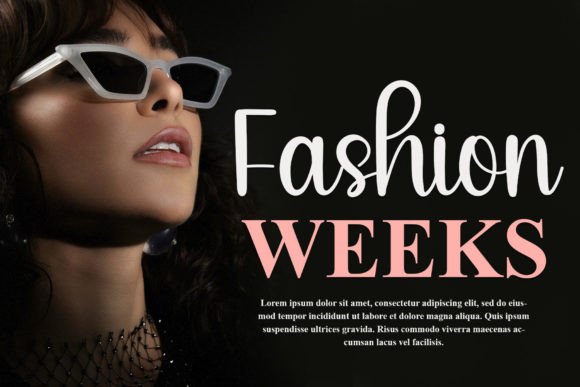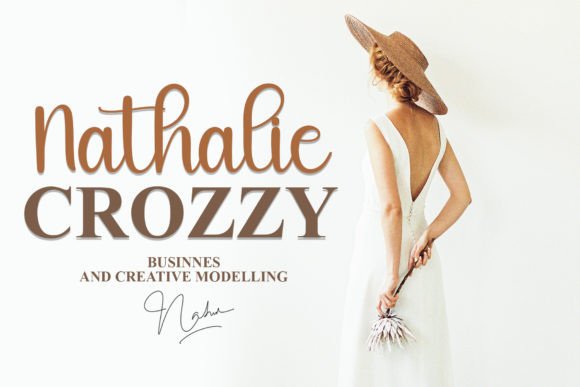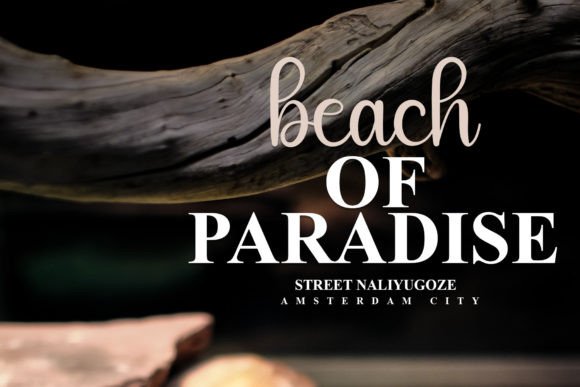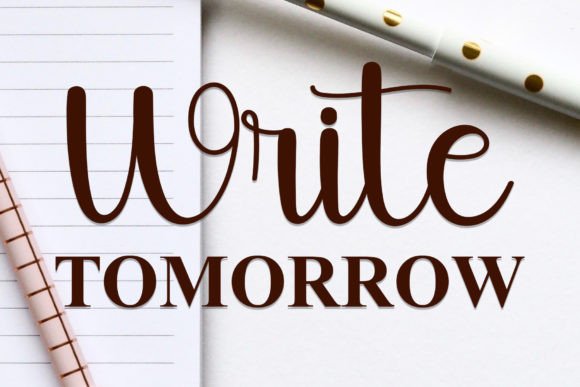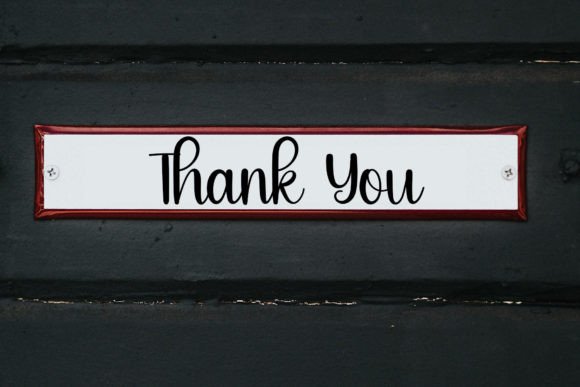
Introducing Attention Font: Elevate Your Designs with Elegance and Sophistication
Are you on the hunt for a font that exudes class, modernity, and refinement? Look no further than Attention Font, a stunning handwritten typeface that is sure to take your designs to the next level. With its beautiful and elegant strokes, Attention Font is perfect for a wide range of creative projects, from logos and branding to invitations, stationery, wedding designs, social media posts, and more!
The Perfect Blend of Style and Versatility
Attention Font is a masterclass in typographic design, boasting a unique blend of style, sophistication, and versatility. Its refined handwritten aesthetic makes it an excellent choice for designers and crafters looking to add a touch of elegance to their work. Whether you’re creating a logo, crafting a social media post, or designing a wedding invitation, Attention Font is the perfect choice.
One of the standout features of Attention Font is its incredible versatility. Its modern and classy design makes it suitable for a wide range of applications, including:
- Invitations and Stationery: Add a touch of elegance to your invitations, greeting cards, and stationery with Attention Font’s beautiful handwritten script.
- Wedding Designs: Make your special day even more unforgettable with stunning wedding designs, from invitations to signage, that feature Attention Font.
- Social Media Posts: Elevate your social media presence with eye-catching posts that showcase your brand’s style and personality.
- And More! The possibilities are endless with Attention Font – use it for packaging, advertising, and any other design project that requires a touch of sophistication.
Why Choose Attention Font?
So, what sets Attention Font apart from other fonts on the market? Here are just a few reasons why designers and crafters love this beautiful typeface:
- Unique and Handwritten: Attention Font’s handwritten aesthetic gives it a unique and personal touch that sets it apart from more traditional fonts.
- Highly Legible: Despite its elegant design, Attention Font is highly legible, making it perfect for use in a wide range of applications.
- Modern and Classy: Attention Font’s modern design ensures that your work looks fresh and up-to-date, while its classy aesthetic adds a touch of sophistication.
Get Creative with Attention Font
- Experiment and Play: Don’t be afraid to experiment and play around with different design combinations – Attention Font is incredibly versatile!